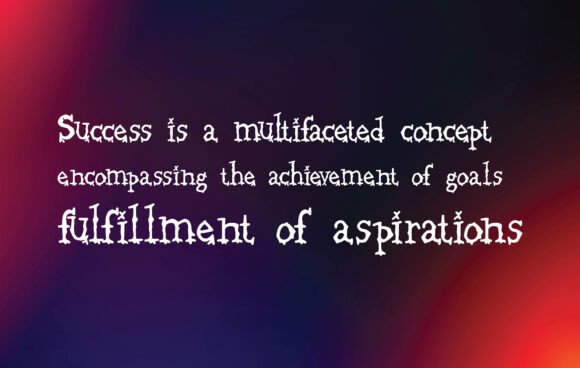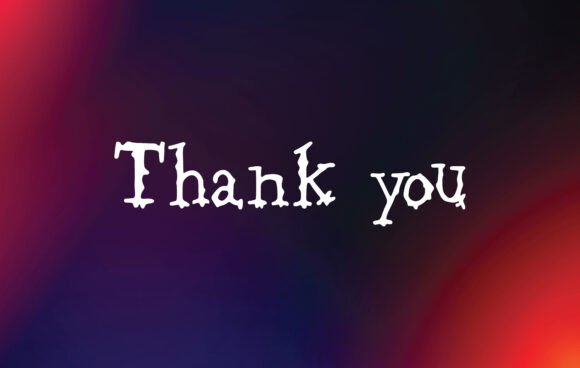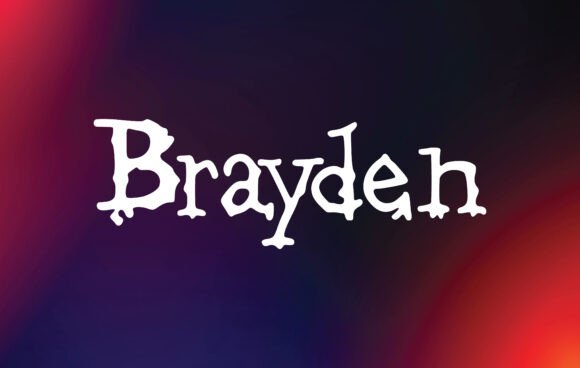
The Brayden Font: A Beautiful Handwritten Font to Elevate Your Designs
I’ll never forget the time I was working on a logo design project for a client’s boutique business. I had a clear vision of what I wanted to create, but I just couldn’t find the right font to bring it all together. The client wanted something elegant, yet playful, and I was determined to deliver. That’s when I stumbled upon the Brayden font, and it was love at first sight! 💕
The Brayden font is a lovely and beautiful handwritten font that has the potential to take your creative ideas to the highest level. It’s perfect for creating eye-catching logos, branding, and quotes that will leave a lasting impression on your audience.
An Honest Review of Brayden Font
What I Love About Brayden Font ✨
- 💫 Beautifully crafted handwritten letters with a personal touch
- 🎨 Versatile and adaptable to various design styles and themes
- 📚 Extensive character set, including glyphs and stylistic alternates
- ⚠️ Limited availability of uppercase letters with diacritics
- ⚠️ Some users may find the font a bit too ornate for certain design projects
The Designer Inspiration Behind Brayden Font
The Brayden font was designed with the intention of creating a beautiful and elegant handwritten font that would inspire creativity and bring a personal touch to design projects. The designer aimed to craft a font that would be versatile and adaptable to various design styles and themes, while maintaining a unique and distinctive personality.
Q: What is the best way to use Brayden font in my designs?
A: The best way to use Brayden font is to experiment with different font sizes, colors, and styles to fit your design needs. You can also explore OpenType features, such as glyphs and stylistic alternates, to add more personality to your text.
Q: Is Brayden font available in other languages?
A: Brayden font may not have extensive language support, but it does include a range of glyphs and diacritics to support various languages. Please check the font character set to ensure it meets your language requirements.